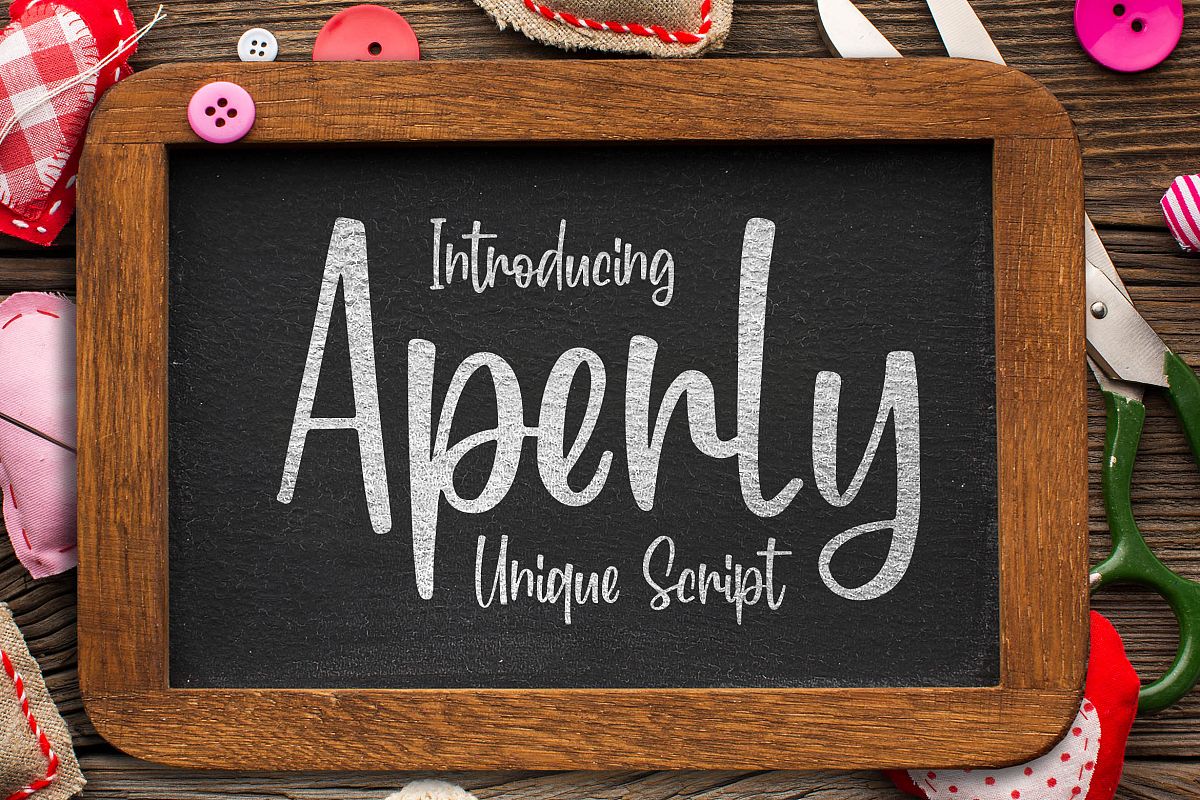
Aperly - Unique Script Font
Introducing of our new product the name is Aperly Playful Script Font. Aperly good Crafted, logotype, label, badge, headline, signature, packaging and any more.
MULTILINGUAL ACCENT :
ØÆøæ¢ÐŒœÁĂÂÀÄĄÅÃǼĆČÇĈĊĎÉĔĚÊËĖÈĘĞĜĢĠĤÍĬÎÏİÌĮĨĴĶĹĽĻĿŃŇŅÑÓŎÔÖÒŐǾÕŔŘŖŚŠŞŜȘŤŢÚŬÛÜÙŰŲŮŨẂŴẄẀÝŶŸỲŹŽŻáăâäàąåãǽćčçĉċďéĕěêëėèęğĝģġĥíîïìįĩĵķĺľļŀńʼnňņñóŏôöòőǿõŕřŗśšşŝșťţŭûüűùųůũẃŵẅẁýŷÿỳźžż